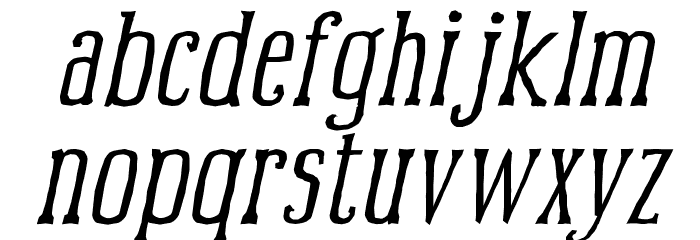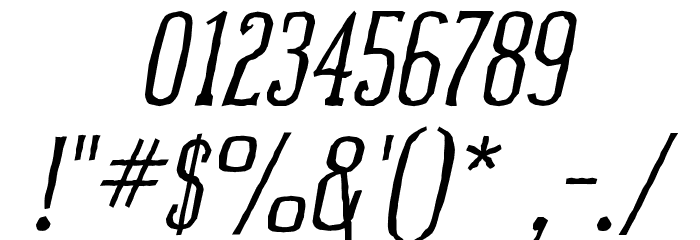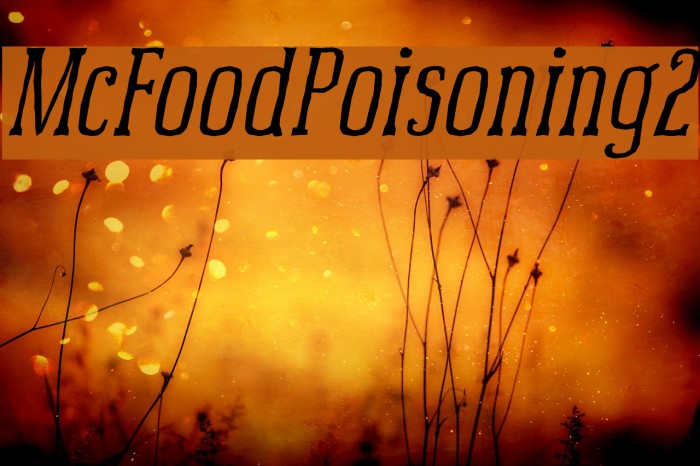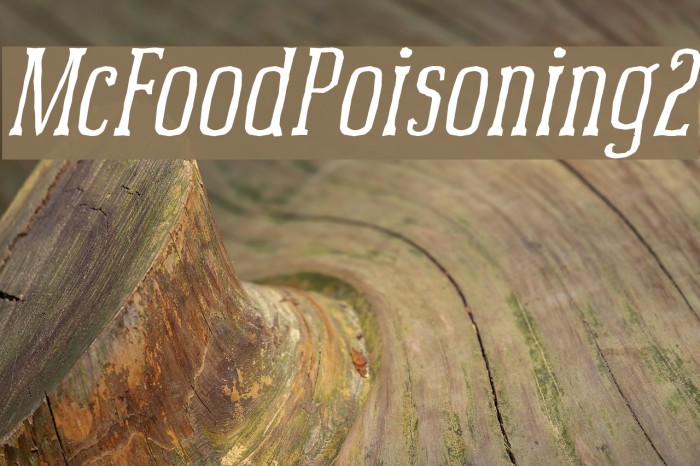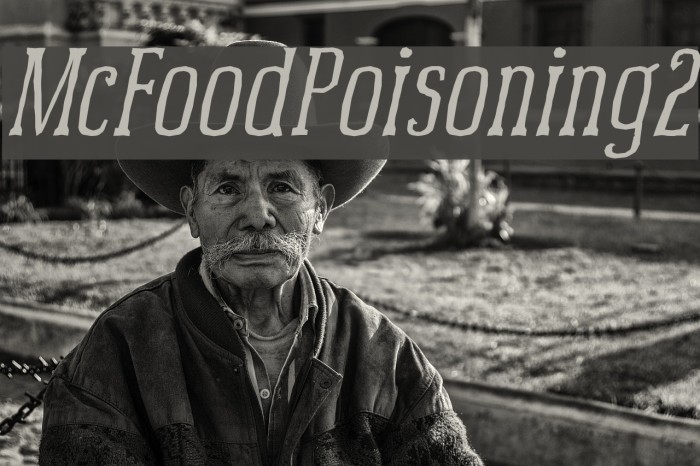
McFoodPoisoning2 Font
This font features a dynamic and slightly slanted design, combining elements of both serif and script styles. The uppercase letters are bold and elongated, giving a sense of movement and energy. The lowercase letters maintain a consistent slant, enhancing the font's fluidity. Numbers are clear and legible, with a slight tilt that matches the overall style. Special characters are well-integrated, maintaining the font's unique flair. The strokes are moderately thick, providing a medium contrast that ensures readability while retaining a distinctive appearance.
A dynamic, slanted serif-script hybrid with medium contrast and bold strokes.
- Proposed Projects: Ideal for branding, packaging, and poster design where a bold and energetic statement is needed.